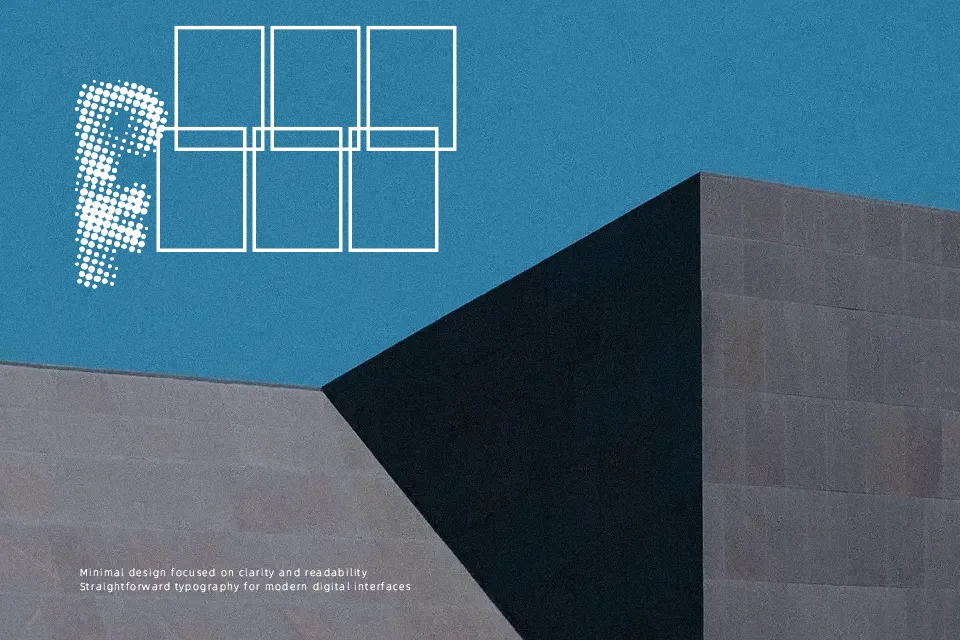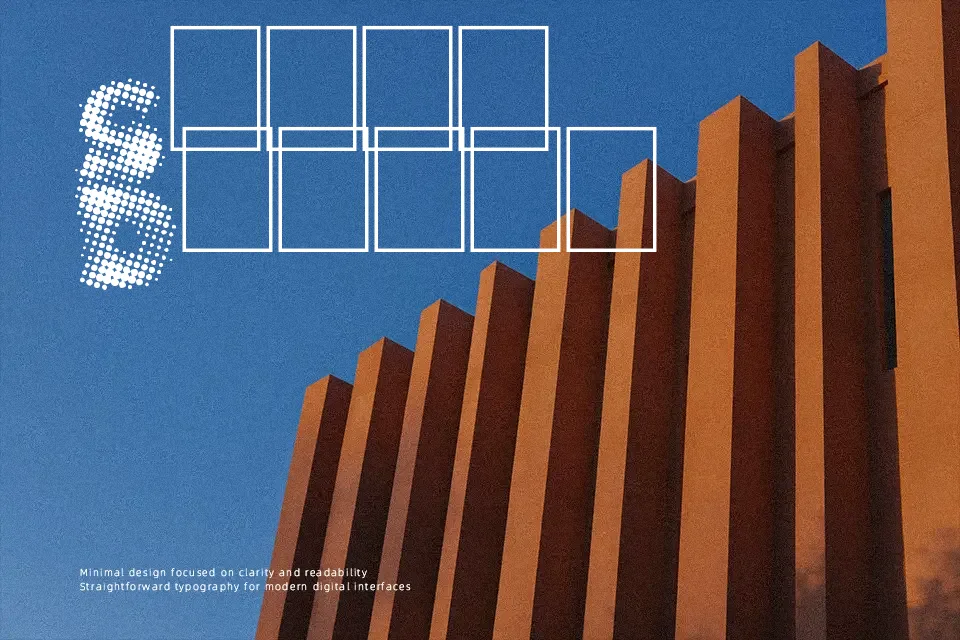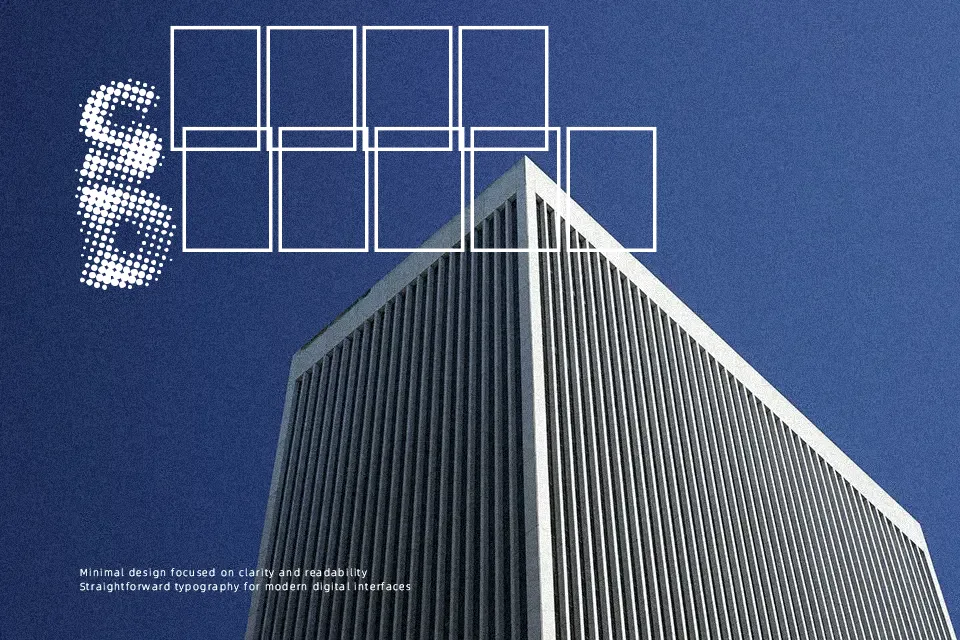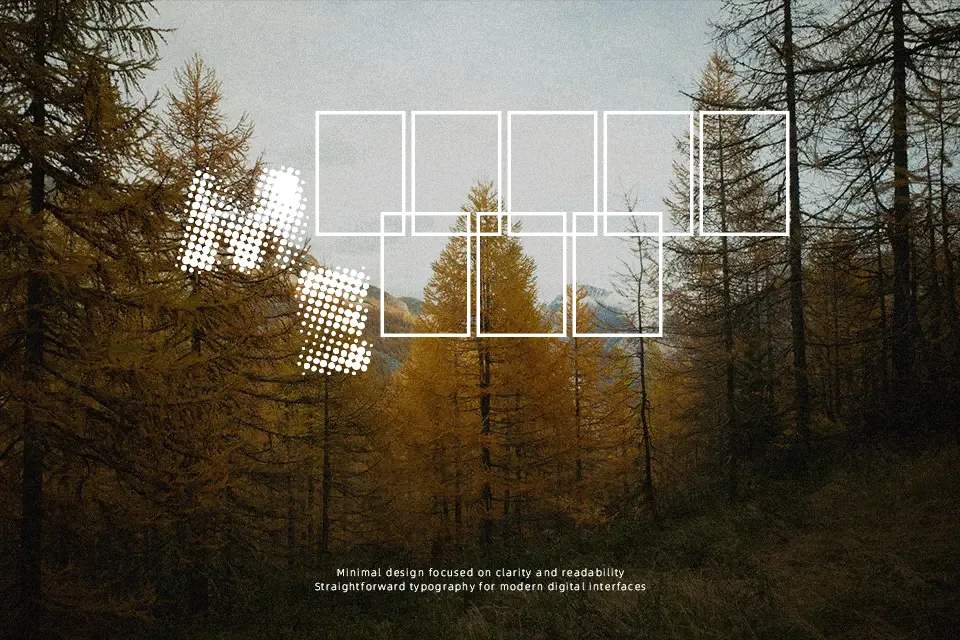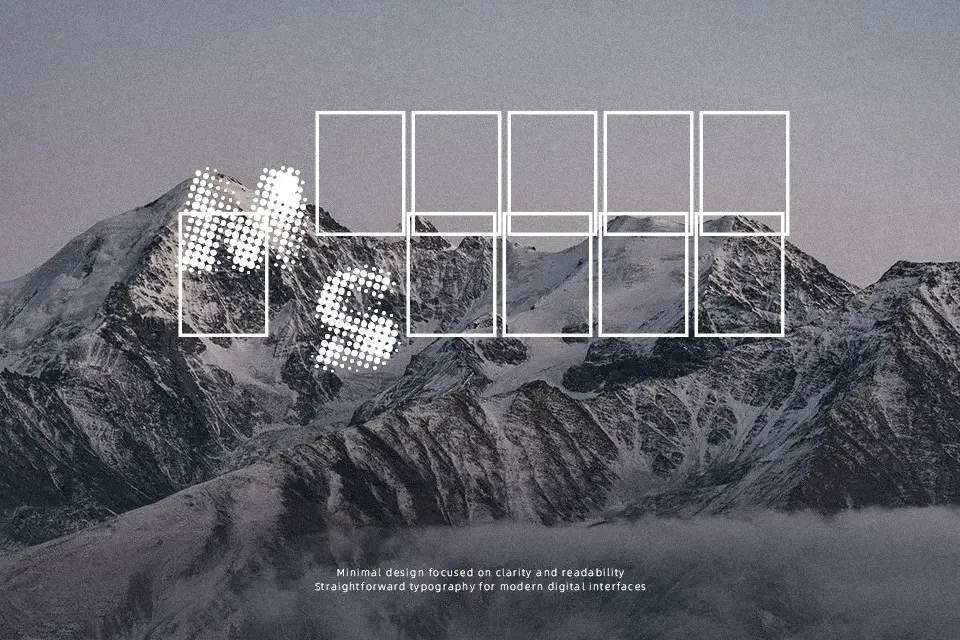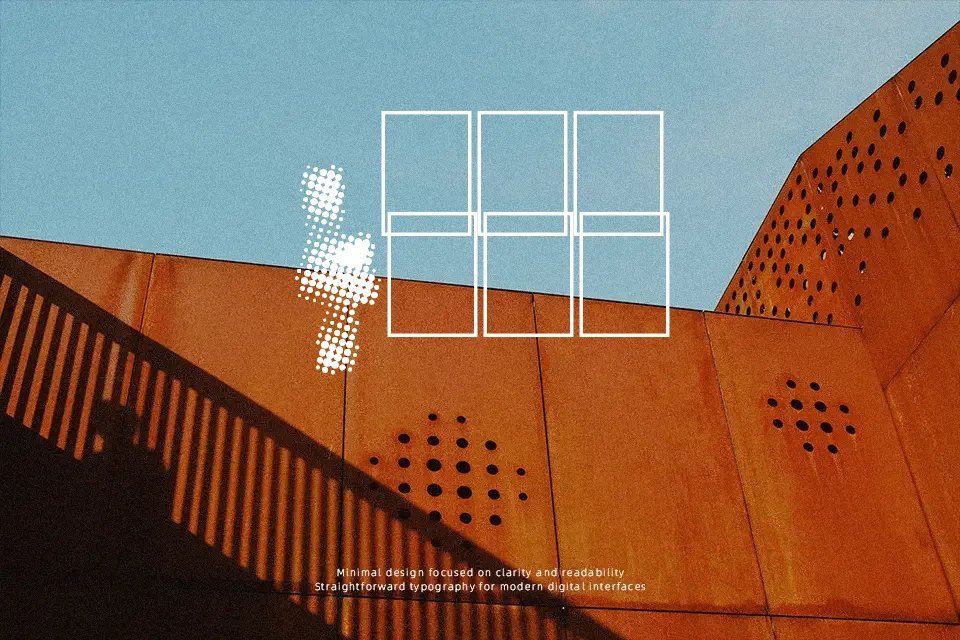
Vanished Font
Designed by imagex
Vanished Font features heavily distressed, fractured letterforms defined by eroded silhouettes, jagged cutouts, and irregular geometric strokes. Balanced spacing preserves word shapes across short phrases, while the bold, uneven contours command attention in striking headlines, mystery thriller posters, and grungy package branding. Because the extensive degradation obscures internal counters and delicate junctions, the letterforms quickly lose clarity below headline scales. Extended body copy and dense informational settings severely reduce reading comfort, making this design best reserved for expressive focal points.
Best For: horror movie titles, atmospheric music posters, grunge apparel graphics, mystery book covers
Not Ideal For: continuous reading, corporate reports, mobile interface labels, legal documents
Perfect for headline, logo, and packaging, with a dark and decorative style.